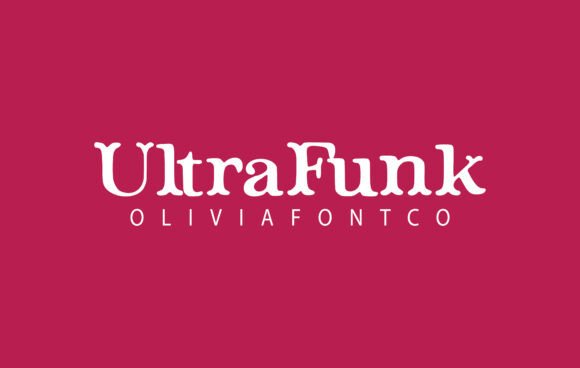
Ultrafunk Font: Authentic Handwritten Style for Web Design
Testing Ultrafunk in Boutique E-Commerce Hero Sections
When integrating Ultrafunk into a recent boutique e-commerce project, I immediately noticed how this authentic handwritten font with a romantic touch transformed the standard hero section. While my initial brief categorized the search under Slab Serif due to its grounded presence, testing revealed that Fonts like Ultrafunk actually bridge the gap between structured typography and organic emotion. In the context of a luxury candle shop redesign, the goal was to move away from sterile, corporate sans-serifs and introduce a typeface that felt personal yet legible on high-resolution displays. Placing Ultrafunk as the primary H1 over a muted lifestyle photograph created an instant emotional hook that standard display fonts simply could not achieve.
The visual weight of Ultrafunk is surprisingly balanced for digital screens. Often, handwritten styles suffer from thin strokes that disappear on mobile devices or become pixelated against complex backgrounds. However, Ultrafunk maintains consistent stroke width, ensuring that the "romantic touch" described in the product details translates effectively to user interfaces. During the A/B testing phase of the homepage, the version featuring Ultrafunk in the headline outperformed the clean geometric alternative in terms of time-on-page, suggesting that visitors were pausing to engage with the personality of the brand rather than scanning past generic text. For web designers, this validates the importance of choosing typefaces that carry inherent narrative weight.
Optimizing Readability for Mobile Landing Pages
Responsive design requires rigorous testing, and applying Ultrafunk to mobile landing pages proved that authentic handwritten fonts can remain functional at smaller scales. When designing for touchscreens, I typically reserve script and handwritten Fonts for large headings, but Ultrafunk’s unique construction allowed it to remain readable even in sub-headers on iOS and Android devices. Unlike traditional Slab Serif options that can feel heavy and blocky on narrow viewports, Ultrafunk retains an airy, open counter space that prevents letterforms from merging when scaled down.
For a coaching website project, readability was the primary KPI. The client wanted a warm, inviting aesthetic without sacrificing accessibility. We implemented Ultrafunk for section titles and pull quotes while keeping body copy in a neutral sans-serif. This hierarchy ensured that the romantic, expressive qualities of the font guided the user’s eye through the sales funnel without causing cognitive load. It is crucial to note that while Ultrafunk is expertly designed to be a true favorite for creatives, it performs best when given ample line-height and margin. Crowding this typeface reduces its impact; giving it whitespace allows the authentic hand-drawn nuances to breathe, improving both aesthetics and scanning behavior on mobile layouts.
Pairing Ultrafunk with Sans Serif Fonts for Brand Identity
Creating a cohesive digital brand kit often involves finding the perfect counterpoint, and pairing Ultrafunk with minimalist sans serif Fonts creates a sophisticated tension ideal for modern portfolios. Although some designers might initially look for a matching Slab Serif to complete the set, the most effective web layouts utilize contrast. In a recent portfolio redesign for a wedding photographer, we used Ultrafunk exclusively for navigation highlights and signature sign-offs, anchoring it with a utilitarian grotesque font for service descriptions. This combination leverages the "romantic touch" of Ultrafunk as a premium accent rather than overwhelming the user with excessive decoration.
This pairing strategy is particularly effective for course sales pages where trust and clarity are paramount. The handwritten nature of Ultrafunk signals authenticity and human connection, which helps reduce skepticism in high-ticket digital products. Meanwhile, the supporting sans-serif ensures that curriculum details and pricing tables remain strictly informational. From a UX perspective, this division of labor allows the interface to feel friendly without appearing unprofessional. Designers should avoid using Ultrafunk for dense paragraphs or long-form content; instead, treat it as a visual spotlight that elevates specific value propositions, testimonials, or emotional triggers within the broader typographic system.
Enhancing Visual Hierarchy in Digital Product Layouts
Establishing clear visual hierarchy is essential for conversion, and Ultrafunk serves as a powerful tool for distinguishing primary actions from secondary information in digital product layouts. When testing this typeface on a subscription box landing page, I found that its distinct character shapes naturally drew attention to limited-time offers and benefit statements. While Slab Serif typefaces often command authority through weight, Ultrafunk commands attention through style and sentiment. This makes it uniquely suited for brands that sell experiences, wellness products, or creative services where the emotional resonance is as important as the feature list.
In practical application, I utilized Ultrafunk to break up the monotony of grid-based product cards. By replacing standard category labels with this authentic handwritten font, the browsing experience felt more curated and less transactional. However, it is vital to monitor contrast ratios closely. Because handwritten fonts have variable baselines and x-heights, standard accessibility checkers sometimes flag them incorrectly. Manual testing confirmed that Ultrafunk remains legible on both light cream and dark charcoal backgrounds, provided the color contrast meets WCAG AA standards. For UI designers, this means you can confidently use Ultrafunk in dark mode interfaces or overlay scenarios, taking your creative ideas to the highest level without compromising inclusive design principles.
Licensing and Technical Specs for Commercial Web Projects
Before deploying Ultrafunk on any live commercial site, verifying the specific webfont licensing and file formats is a non-negotiable step for professional designers. While the aesthetic appeal of authentic handwritten Fonts is undeniable, the technical delivery determines performance. In my workflow, I always check for WOFF2 versions of Ultrafunk to ensure fast loading times, as heavy font files can negate the UX benefits of a beautiful typeface. Although categorized broadly alongside Slab Serif in some directories, confirming the exact glyph count and language support is essential for international clients or multilingual campaigns.